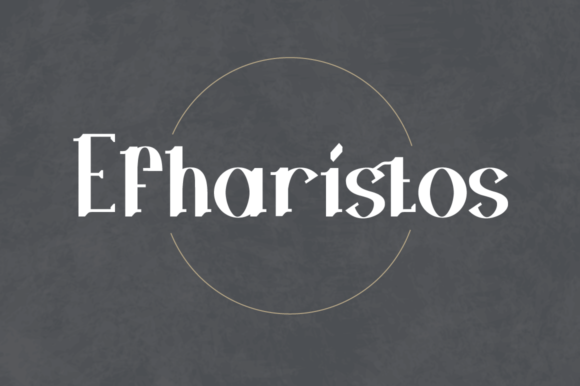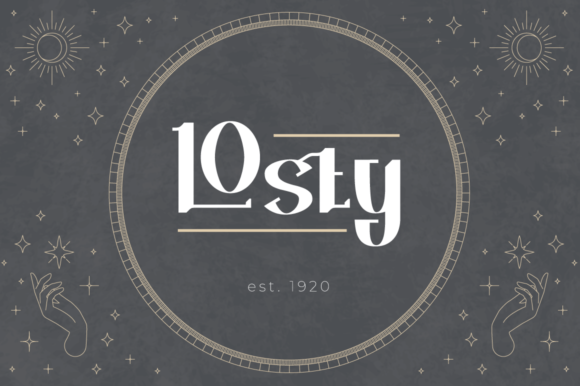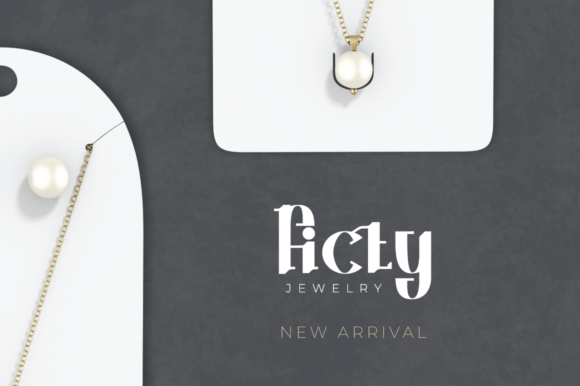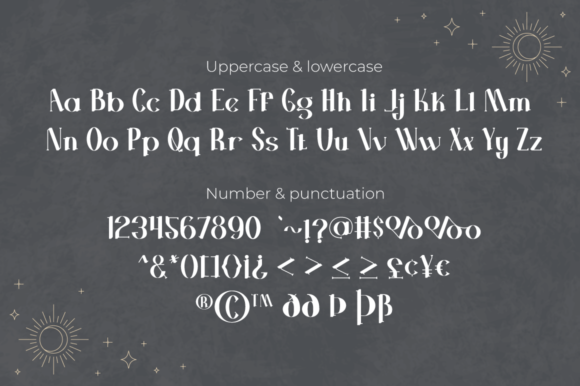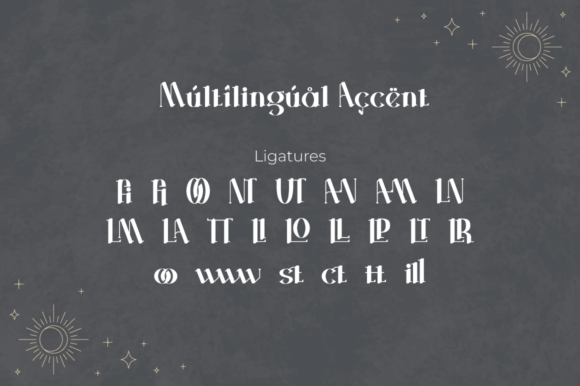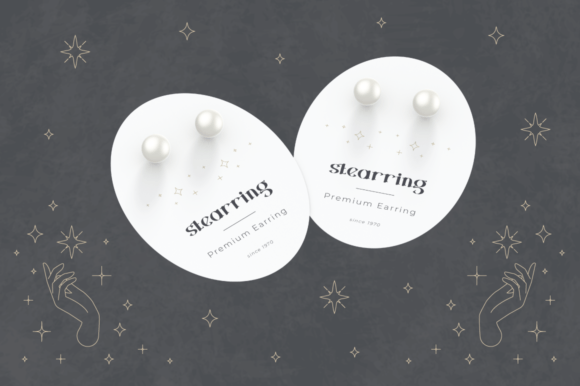
The Perfect Typography Companion: Goolavin Font
As designers, we’ve all been there – staring at a blank canvas, struggling to find the perfect words to bring our vision to life. It’s a moment of pure creative chaos, where the right font can make all the difference. And that’s exactly where the Goolavin Font comes in – a stylish and sophisticated serif font that’s sure to elevate your designs to new heights.
This elegant font is more than just a pretty face – it’s a versatile tool that can be used for a wide range of projects, from sleek business cards to beautiful book covers. Whether you’re a seasoned designer or just starting out, the Goolavin Font is an invaluable asset to have in your toolkit. With its unique blend of style and sophistication, it’s the perfect companion for any creative project.
Goolavin Font Key Features
- Font Family: Goolavin Font is a unique, hand-drawn sans-serif font family.
- Character Count: The font family includes over 500 glyphs, including uppercase and lowercase letters, numbers, and punctuation marks.
- Size: Available in various font sizes, ranging from 8 to 72 points, ideal for both body text and headings.
- Resolution: Optimized for high-resolution displays, including Retina and 4K screens, with a minimum resolution of 300 DPI.
- Unique Characteristics: Goolavin Font features a distinctive, hand-drawn style with subtle irregularities and imperfections, giving it a warm and human touch.
Goolavin Font Review
As a designer, I was excited to dive into the Goolavin font and see what it had to offer. Overall, I have mixed feelings about this font, but let’s start with the good stuff.
- Unique aesthetic: Goolavin has a distinctive, hand-drawn feel that sets it apart from more traditional sans-serif fonts.
- Great for creative projects: The font’s quirks and imperfections make it perfect for projects that require a touch of personality and whimsy.
- Good legibility: Despite its unconventional design, Goolavin is still easy to read, even at smaller font sizes.
- Limited versatility: Goolavin’s distinctive style may not be suitable for all types of projects, particularly those that require a more formal or professional tone.
- Lack of language support: The font’s character set is limited, which may make it difficult to use for projects that require multiple languages.
- Not ideal for body text: While Goolavin is great for headlines and titles, it may not be the best choice for large blocks of body text due to its irregular spacing and letterforms.
Overall, I think Goolavin is a great addition to any designer’s toolkit, but it’s not a one-size-fits-all solution. Use it when you need to add some personality and flair to your projects, but be mindful of its limitations.
Goolavin Font: A Practical Application Guide
To get the most out of the Goolavin Font, try the following:
- Use it for headings and titles to add a touch of elegance.
- Combine it with other fonts for a unique and creative look.
The Goolavin Font is perfect for:
Alternatives to Goolavin Font
The Great Vibes Font is a beautiful, elegant script font that is perfect for creating a sophisticated and luxurious look. It is ideal for use in branding, logos, and other high-end design projects. Great Vibes Font is more cursive and ornate compared to Goolavin Font, making it a great choice for designs that require a touch of sophistication.
The Carolyna Pro Font is a modern, elegant script font that is perfect for creating a sleek and sophisticated look. It is ideal for use in branding, logos, and other high-end design projects. Carolyna Pro Font is more refined and polished compared to Goolavin Font, making it a great choice for designs that require a touch of elegance.
The Dancing Script Font is a beautiful, elegant script font that is perfect for creating a playful and whimsical look. It is ideal for use in branding, logos, and other design projects that require a touch of personality. Dancing Script Font is more playful and fun compared to Goolavin Font, making it a great choice for designs that require a lighthearted tone.
For optimal readability, we recommend using font sizes between 12px and 24px for body text and larger sizes (up to 48px) for headings. This range allows the font to be easily readable while maintaining its aesthetic appeal.
Q: Does Goolavin Font support Unicode characters and languages?
Yes, the Goolavin Font supports a wide range of Unicode characters and languages, including Latin, Cyrillic, and Greek scripts. This makes it a versatile choice for designers working on multilingual projects or creating content for global audiences.